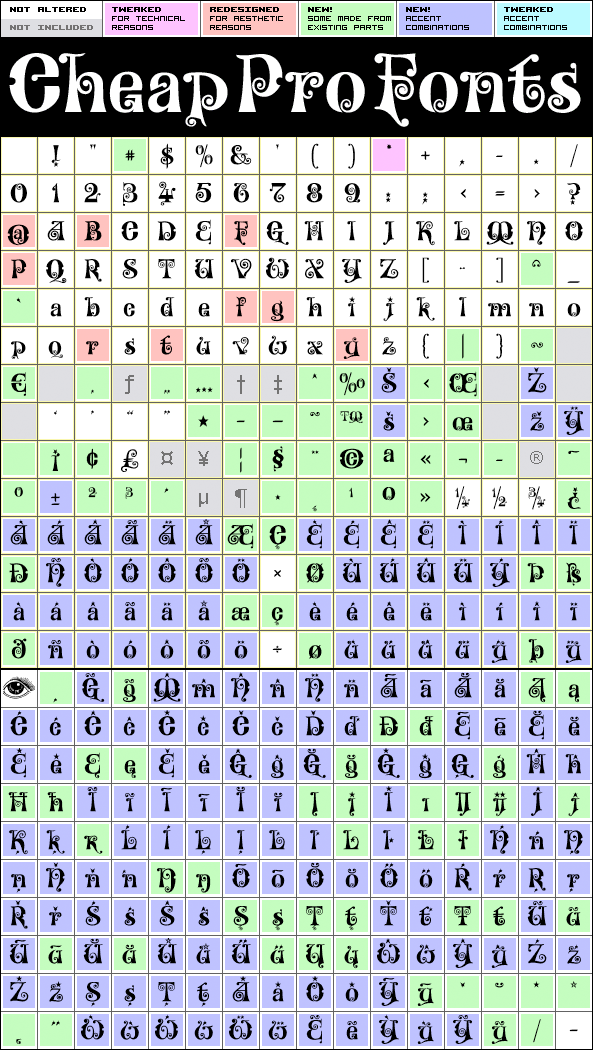
This font just oozes christmas and holiday spirit from every curve of every letter! :) I have cleaned up all the outlines, redesigned the F (which looked more like a J), tweaked some more letters and then expanded the font with the usual multilingual glyphs. I loved this font when I first saw it, but was very nervous that it would be difficult to design the accents - but it was a breeze! It has been one of the most enjoyable fonts to rework so far. Hope you will enjoy it, too.
Kingthings Willowless Pro is a professionally reworked font that contains an extended character set for setting text in 65 languages requiring more than the basic A-Z!